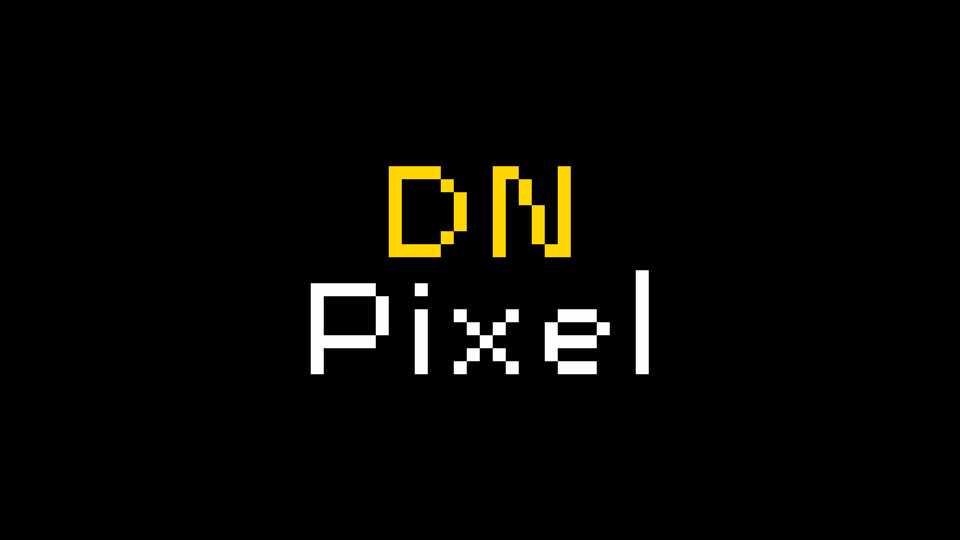
Download DN Pixel font, a fun and easy pixel typeface. DN Pixel is great for retro or contemporary displays, works well for headlines or body copy.
Designer: Daniel Nisbet